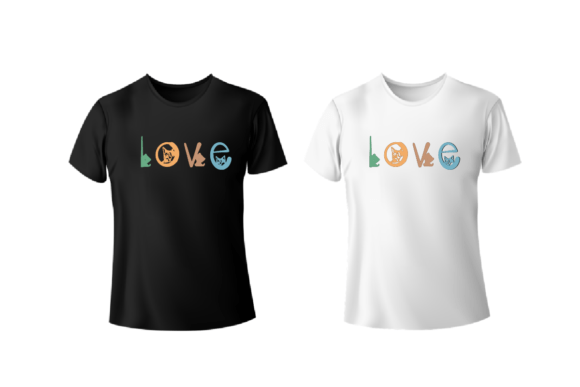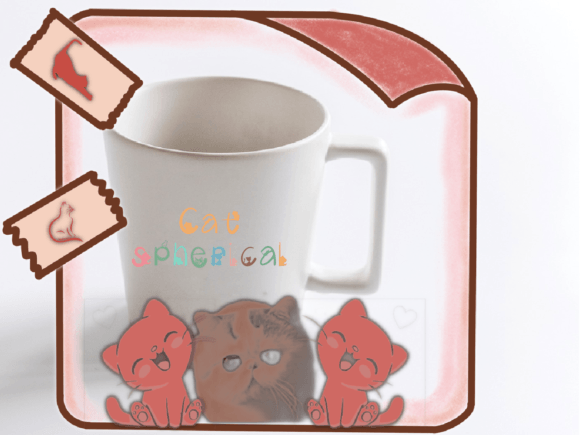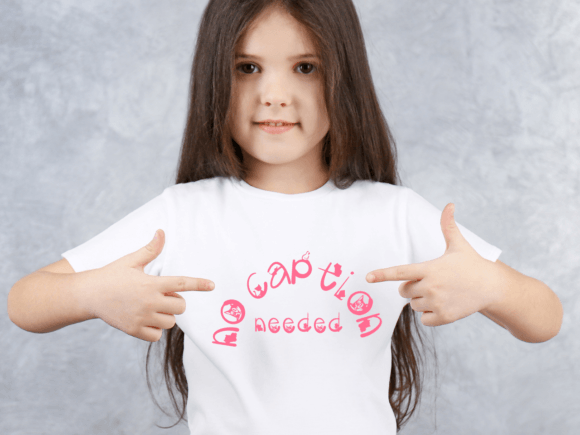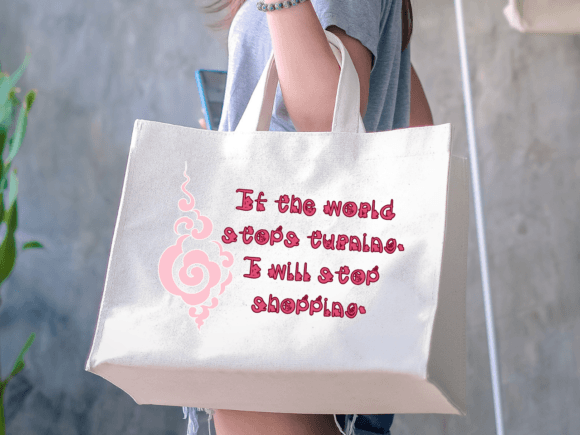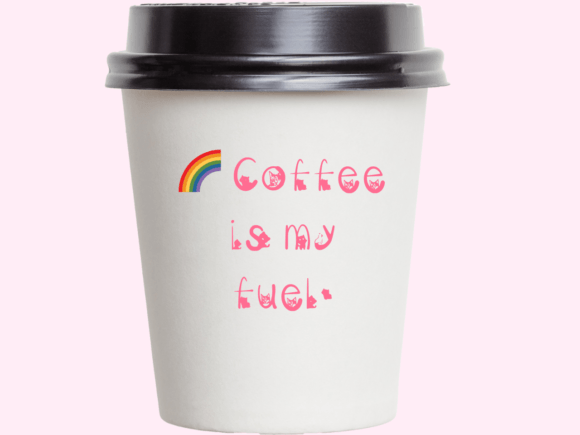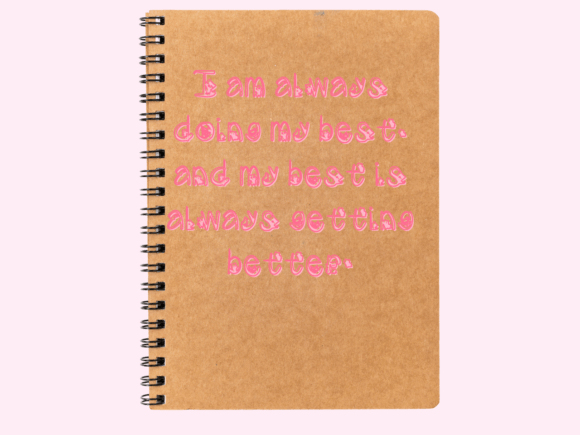
The Purrfect Font: A Deep Dive into Cat Spherical
I’ll never forget the time I was working on a whimsical cat-themed project for a client, and I just couldn’t find the right font to match the playful vibe. The client wanted something fun, adorable, and a bit quirky. I scoured the internet, tried out dozens of fonts, but nothing seemed quite right. That was until I stumbled upon Cat Spherical. ✨
This delightful font has been a game-changer for my designs, and I’m excited to share my experience with you. In this article, we’ll explore the ins and outs of Cat Spherical, including its features, how to use it on different platforms, and some similar font alternatives.
An Honest Review of Cat Spherical
- ✨ The whimsical and playful design that adds a touch of fun to any project
- ✅ Easy to read and understand, even at smaller font sizes
- 🌈 A wide range of uses, from digital designs to print materials
- 💻 Great for titles, headings, and short paragraphs
While Cat Spherical is an amazing font, there are a few things to keep in mind: 🤔
- ⚠️ It may not be the best choice for body text or long paragraphs, as it’s designed for titles and headings
- ⚠️ Some characters may not work well at very small font sizes, so be sure to test it out
The Backstory of Cat Spherical
According to the font’s creator, Cat Spherical was inspired by the joy and playfulness of cats. The designer wanted to create a font that captured the whimsy and curiosity of our feline friends. With Cat Spherical, you can bring a touch of that playfulness to your designs.
Q: Is Cat Spherical suitable for body text?
A: While Cat Spherical is a beautiful font, it’s designed for titles and headings. For body text, you may want to choose a more traditional font.